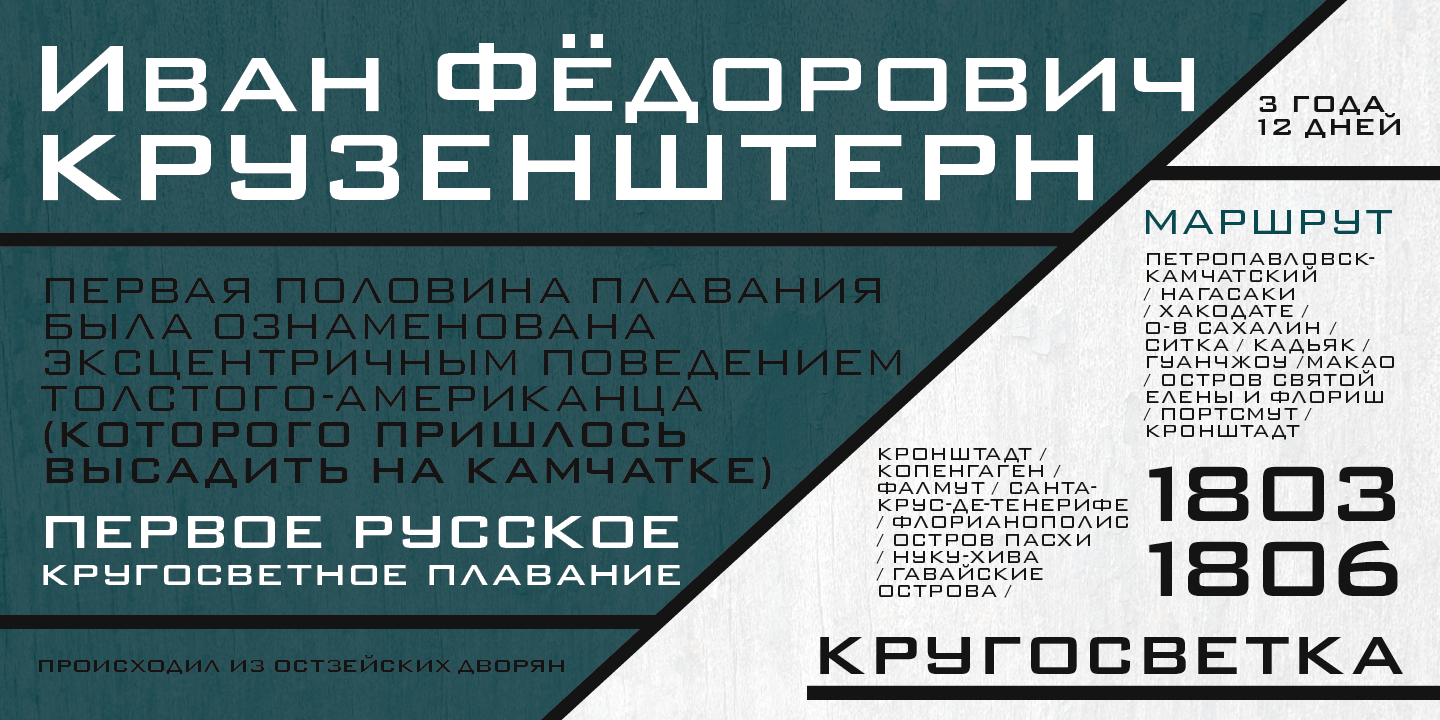
The Bank Gothic Font is a powerful and iconic choice for a wide array of design applications that demand a strong, authoritative, and distinctly modern aesthetic. Imagine it gracing the logos of financial institutions, providing clear and impactful headings for architectural blueprints, or lending a sense of robust precision to technical manuals. Its geometric and condensed nature also makes it ideal for sports branding, movie titles, security-related graphics, and any project where a sense of strength, reliability, and no-nonsense efficiency is paramount. This font excels in environments that demand a bold and unmistakable visual presence.
What makes Bank Gothic Font so exciting is its enduring appeal as a quintessential American industrial typeface, despite its origins dating back to 1930. Its unique blend of sharp angles and square proportions gives it an unmistakable look that is both timeless and forward-thinking. It effortlessly conveys a sense of stability, power, and technological advancement, making it a favorite for designs that aim to communicate strength and modernity. Its clear, direct forms ensure high legibility in display settings, making it an engaging and reliable choice for impactful visual communication.
The Bank Gothic Font family, while known for its distinctive uppercase characters, offers variations to suit different design needs. You'll typically find a range of weights, from a standard Medium or Regular that's perfect for strong body text and subheadings, to a more pronounced Bold or Heavy that's ideal for headlines and maximum impact. Some versions may also include condensed widths or oblique styles, offering further versatility. Each weight maintains the consistent, geometric forms and powerful presence that define Bank Gothic Font, ensuring a cohesive and strong aesthetic across all your projects. Discover its timeless strength today – Bank Gothic Font Free Download is available now!